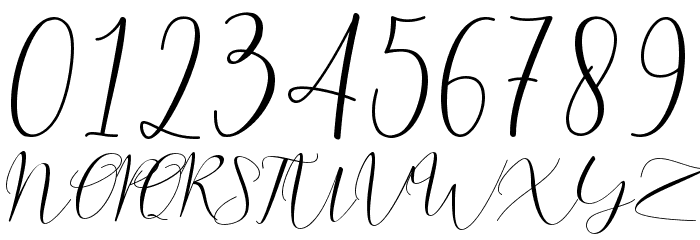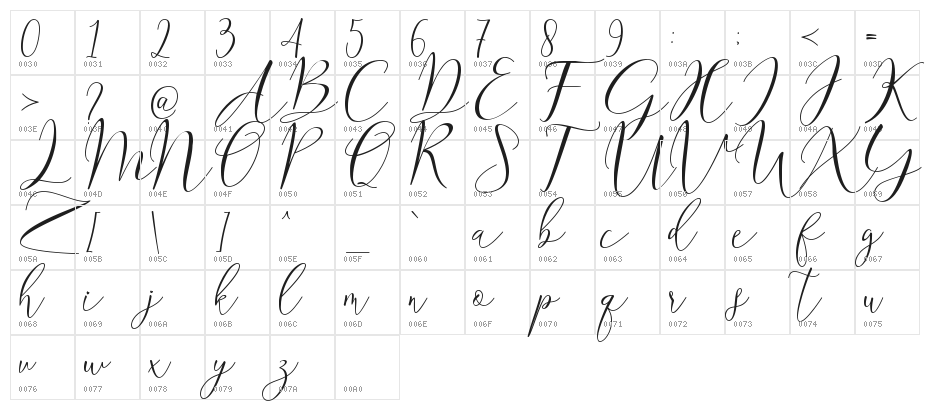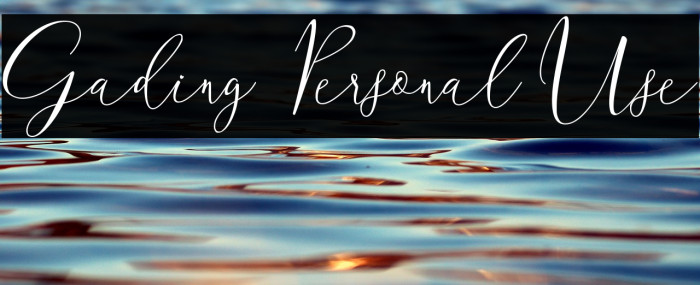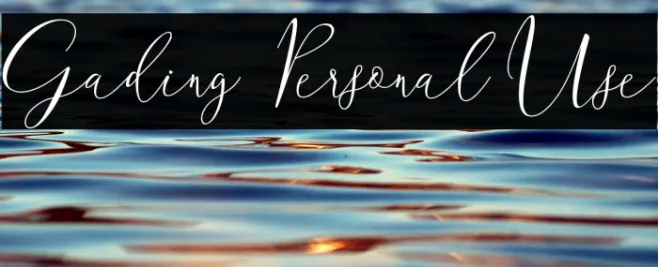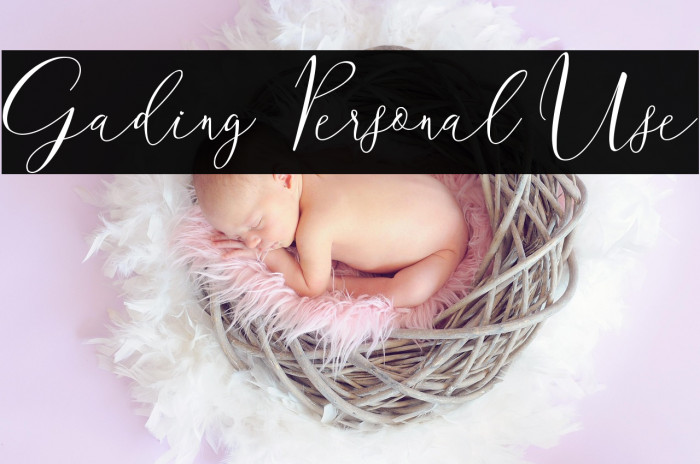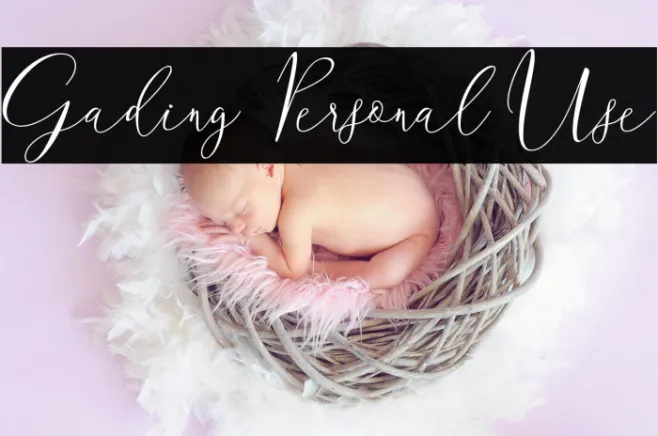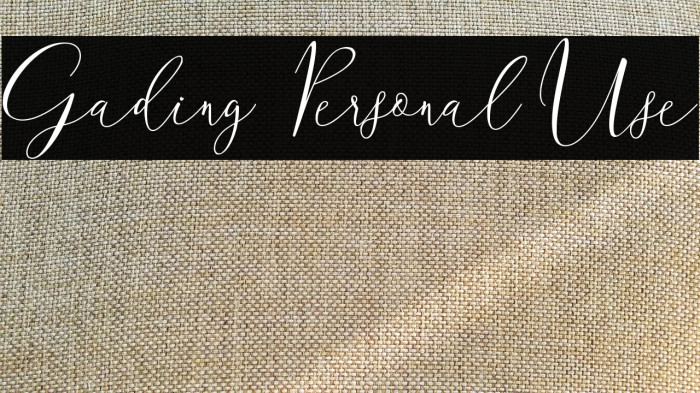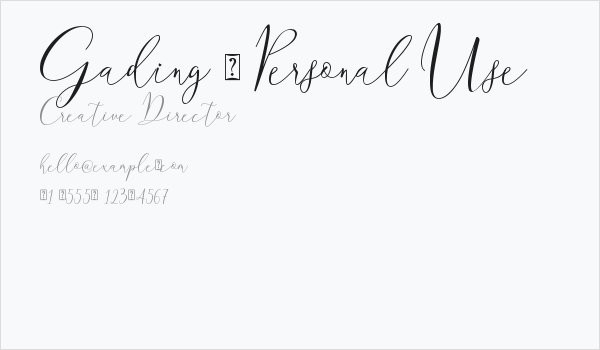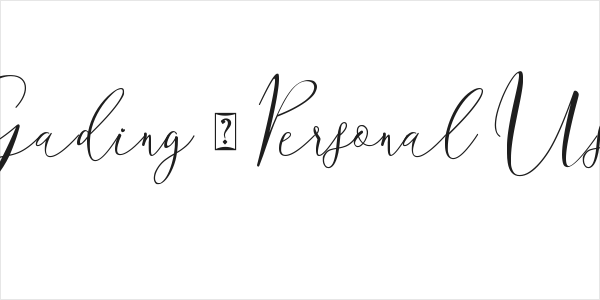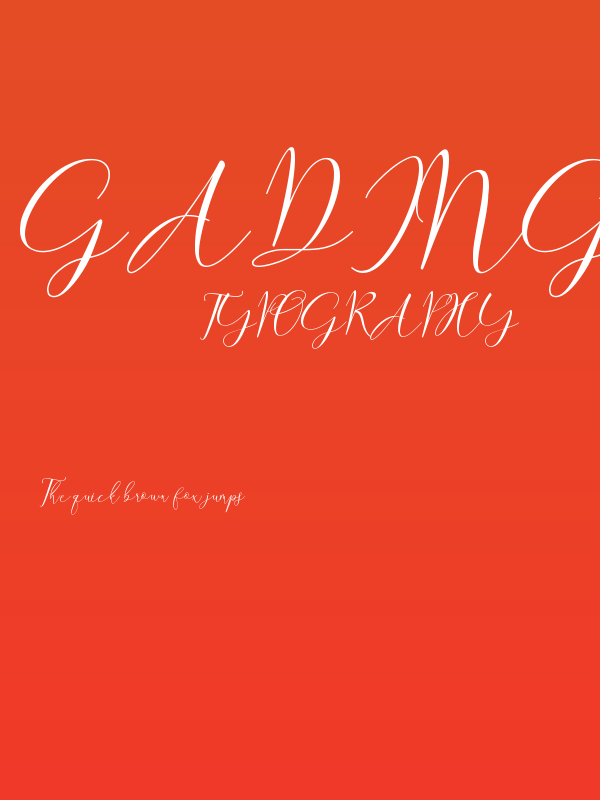
Gading - Personal Use Font
Gading - Personal Use Description
This elegant script font features flowing, interconnected letters with a handwritten style. The uppercase letters are tall and graceful, while the lowercase letters maintain a consistent, fluid motion. The numbers are distinct yet harmonize with the overall cursive theme. Special characters are seamlessly integrated, adding to the font's versatility. The strokes are delicate and vary in thickness, giving a dynamic and lively appearance. This font exudes sophistication and charm, making it suitable for a variety of creative applications.